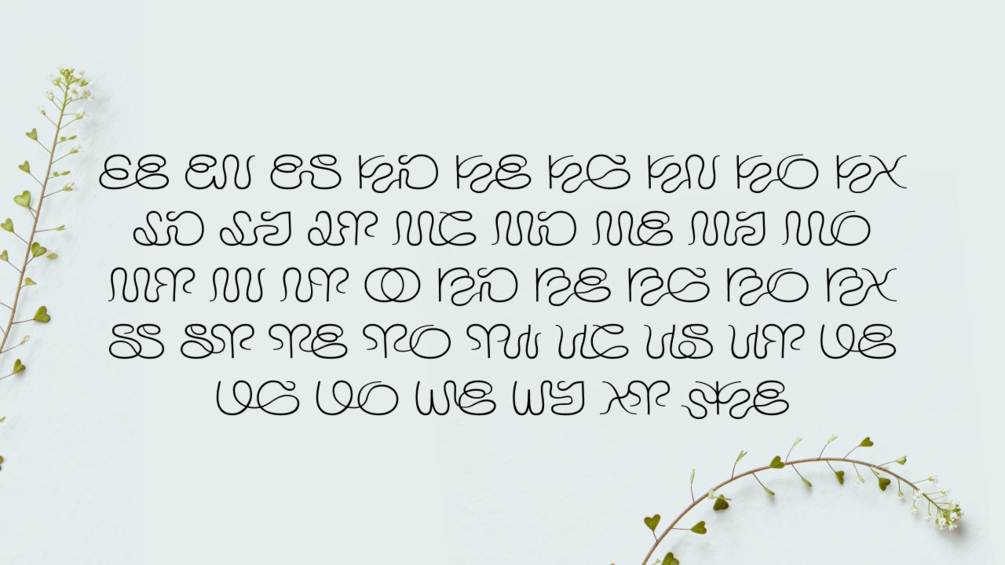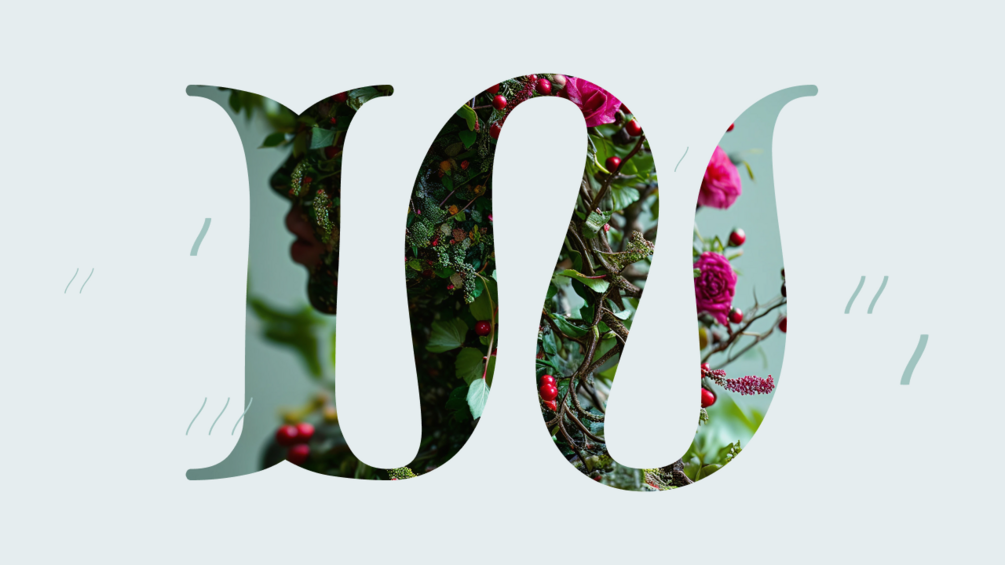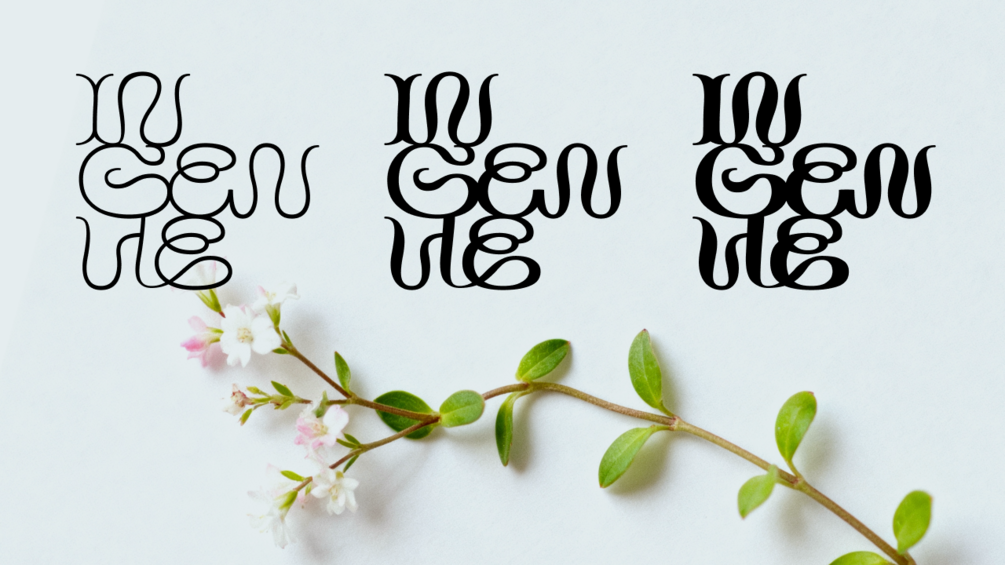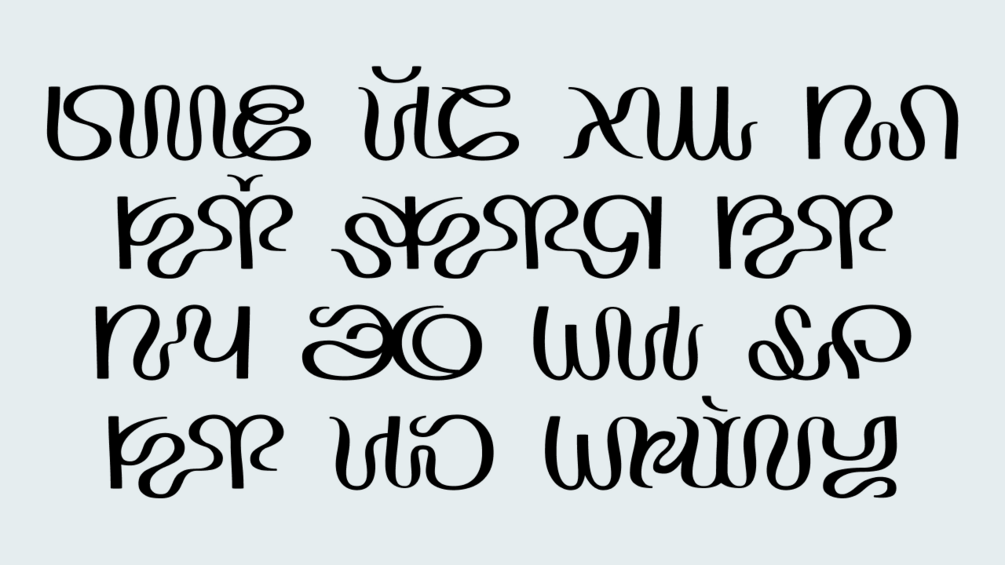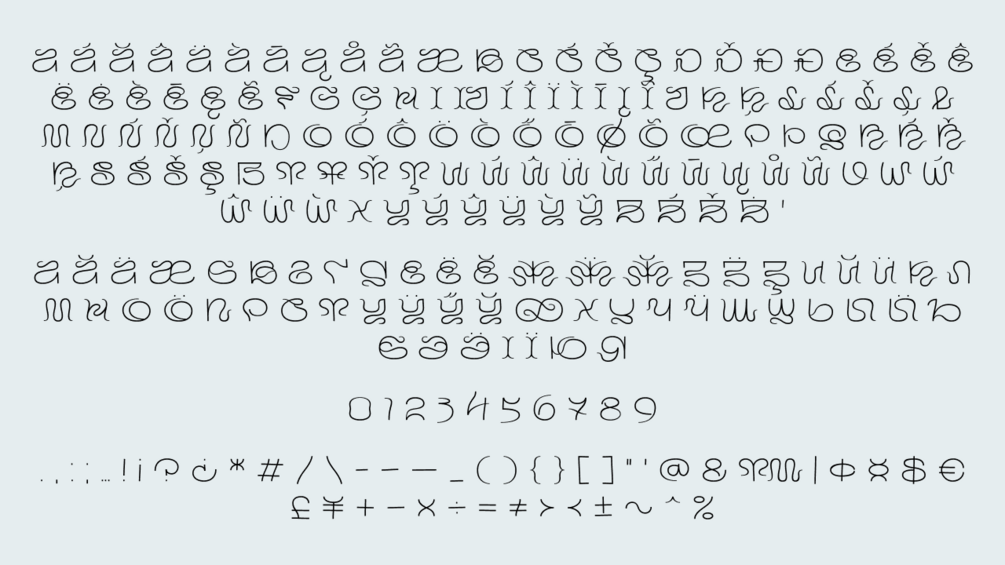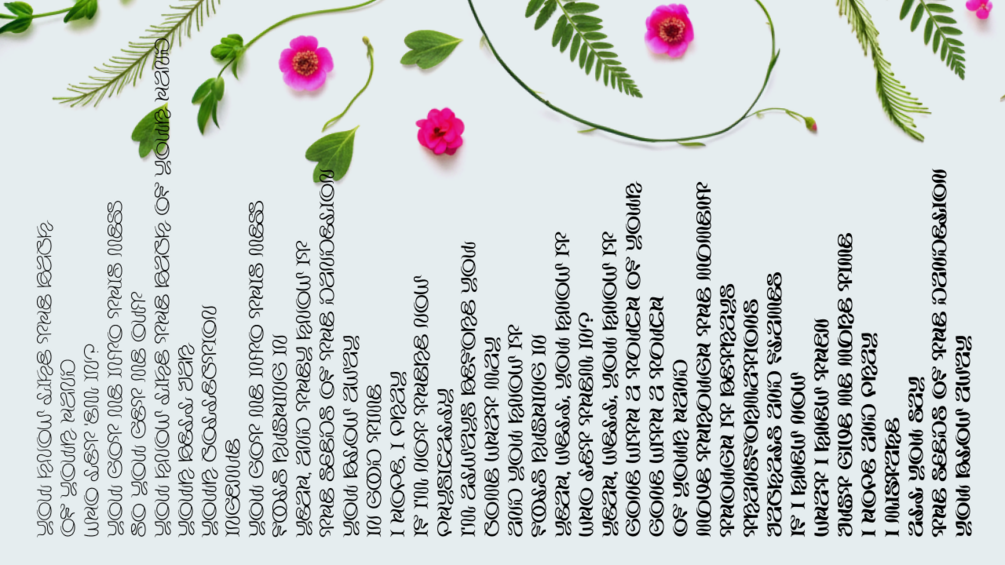
Ingenue font
INGENUE is a versatile variable display font designed with inspiration from botanical elements—such as foliage, trees, and blossoms. It supports extended Latin and Cyrillic glyphs, along with numerals and essential symbols, but is limited to uppercase characters only.
INGENUE offers contextual alternatives and ligatures, enhancing the natural connectivity of the letters for a cohesive visual flow.
As a variable font, it maintains consistent letter sizing while allowing for adjustments in line thickness, enabling precise customization for optimal aesthetics. It is particularly effective for dynamic animations across posters, websites, and various text-centric designs.